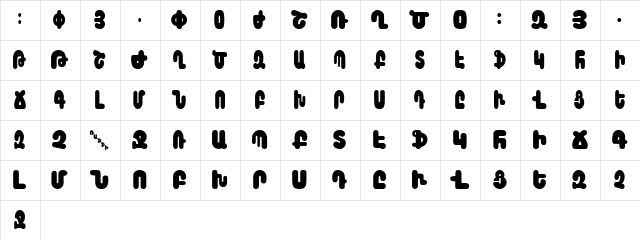
Arax Normal
Design Context for Arax Typeface
Arax takes a measured approach to typography — its balanced proportions and neutral character make it a reliable workhorse for both digital and print work.